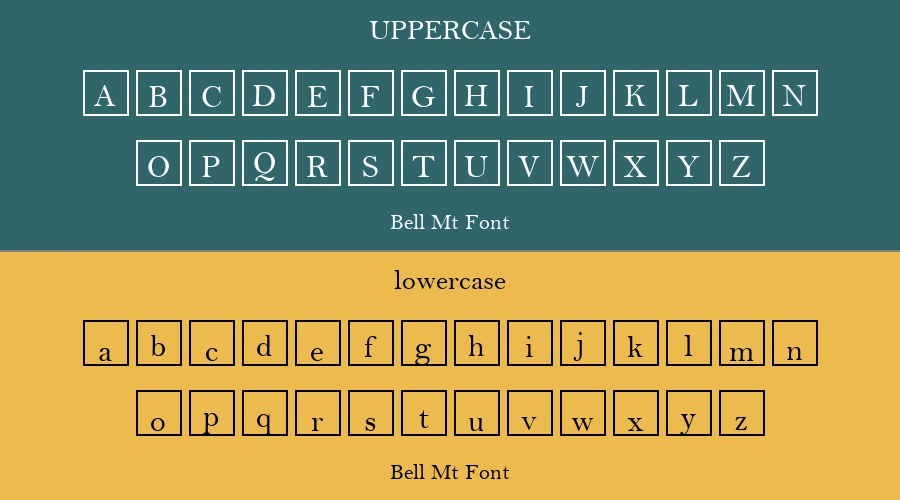
About Bell Mt Font
Bell Mt Font stands out for its distinctive combination of refined proportions and authenticity. Ideal for product naming, it provides the elegance and user trust that professional projects demand. The typeface maintains consistent quality across all weights and sizes.
Key features include refined precise alignment and practical historical accuracy, enhancing typographic expression. In artistic statements applications, Bell Mt Font demonstrates exceptional performance. The ear formation and design lineage contribute to its distinctive character and professional appeal.